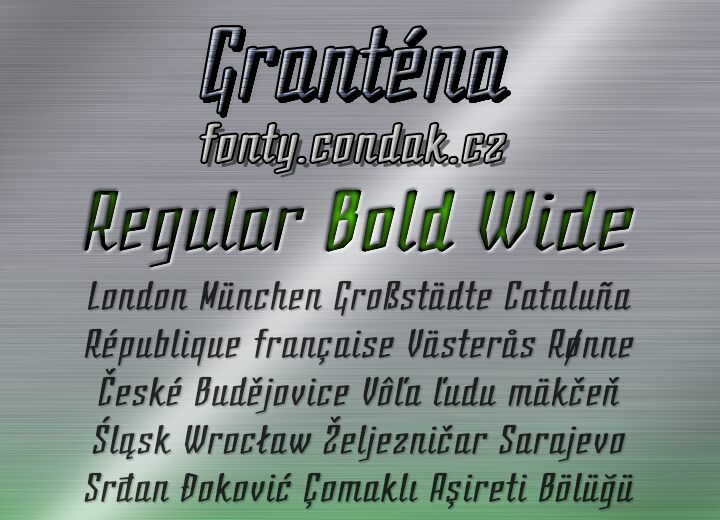
Granténa, the retro-inspired semi-light font designed by Vít Čondák, is perfect for projects that require a touch of vintage flair. The condensed width adds a sense of sophistication and elegance to any design, making it suitable for logos, branding materials, and packaging designs. The clean lines and subtle curves of Granténa give it a timeless quality that will never go out of style. Whether you're creating posters, invitations or social media graphics, this versatile typeface will add character and personality to your designs. Try it out today and let your creativity run wild with Granténa!
Dynamic font with a retro feeling intended for headers, titles and decorative parts of text.